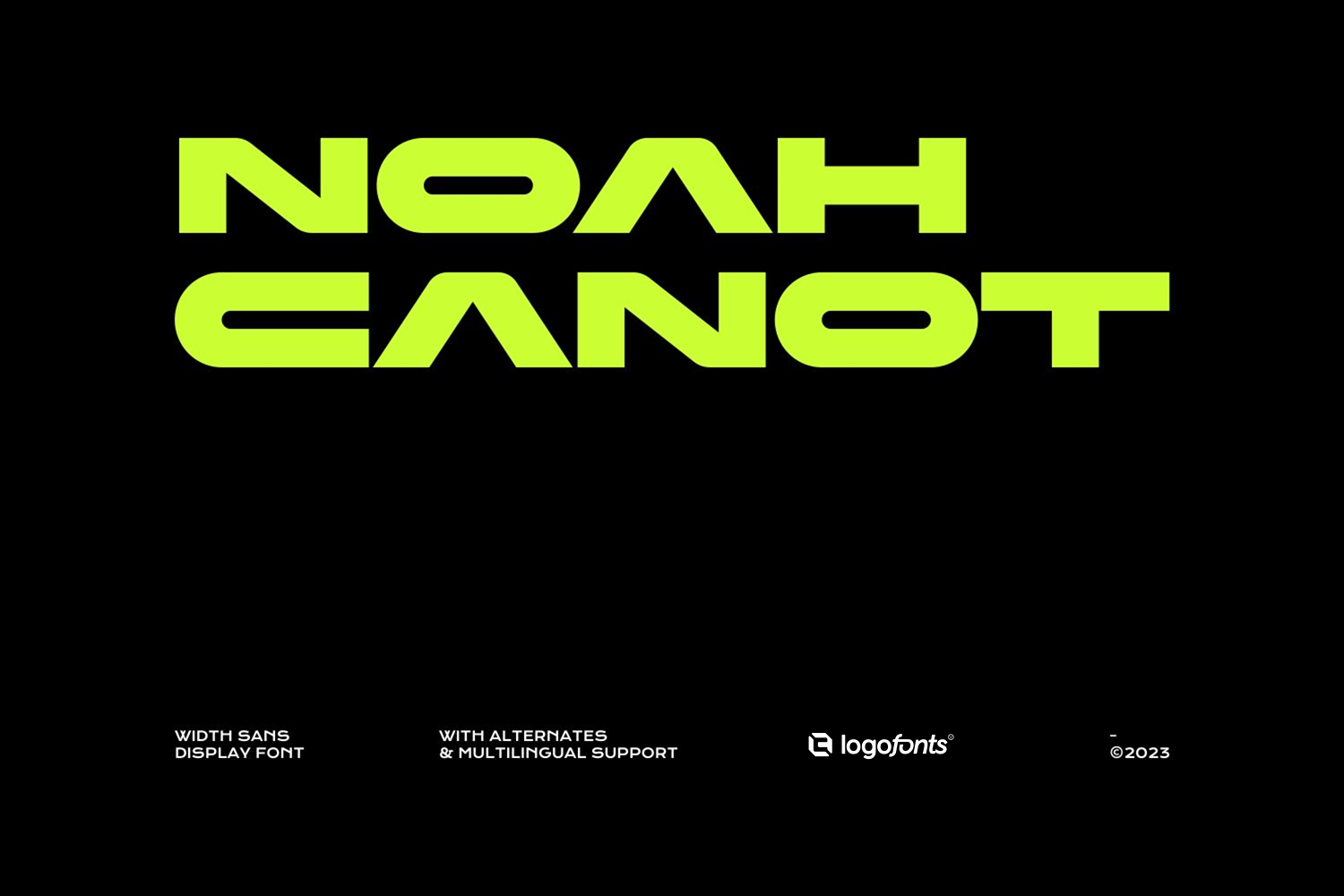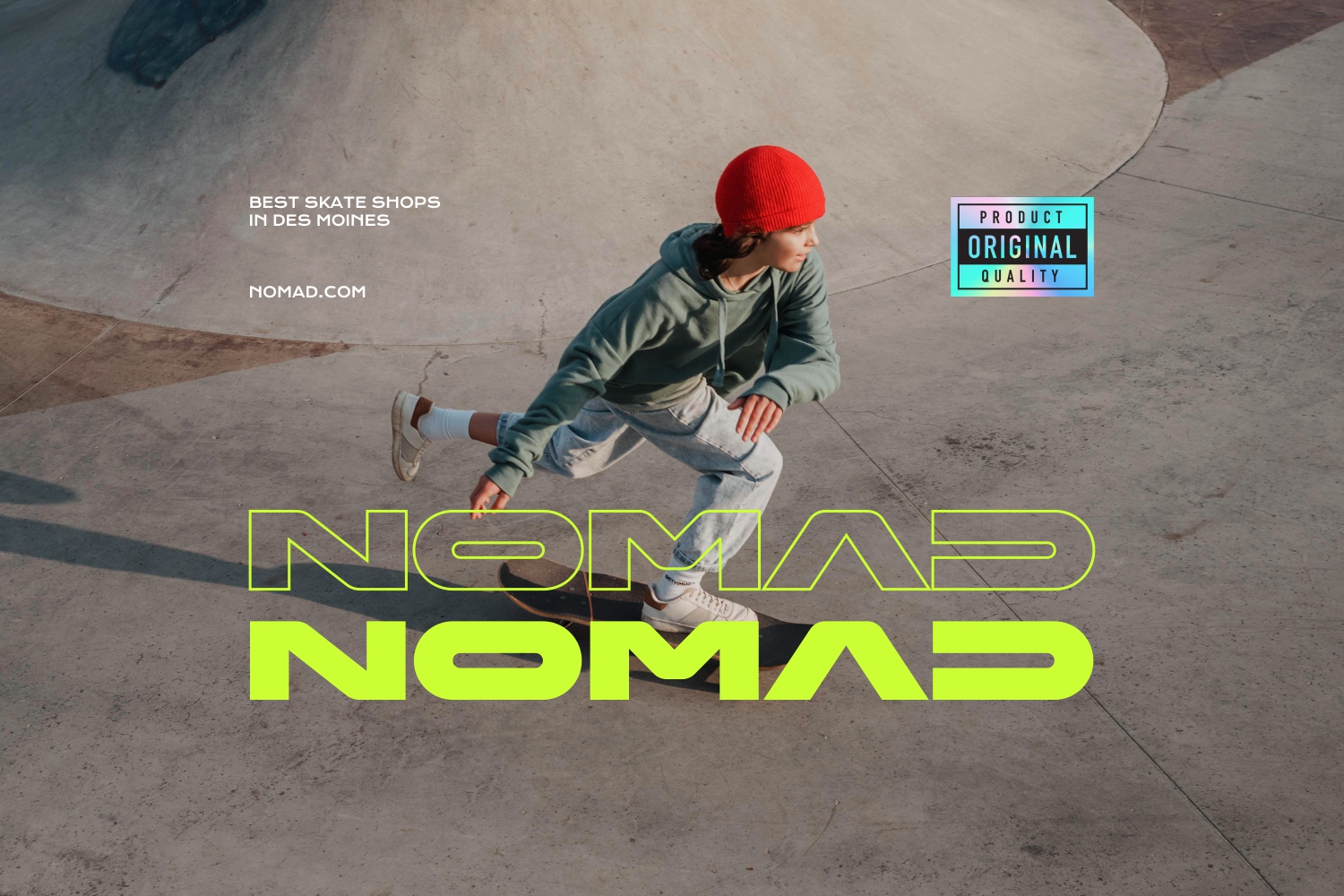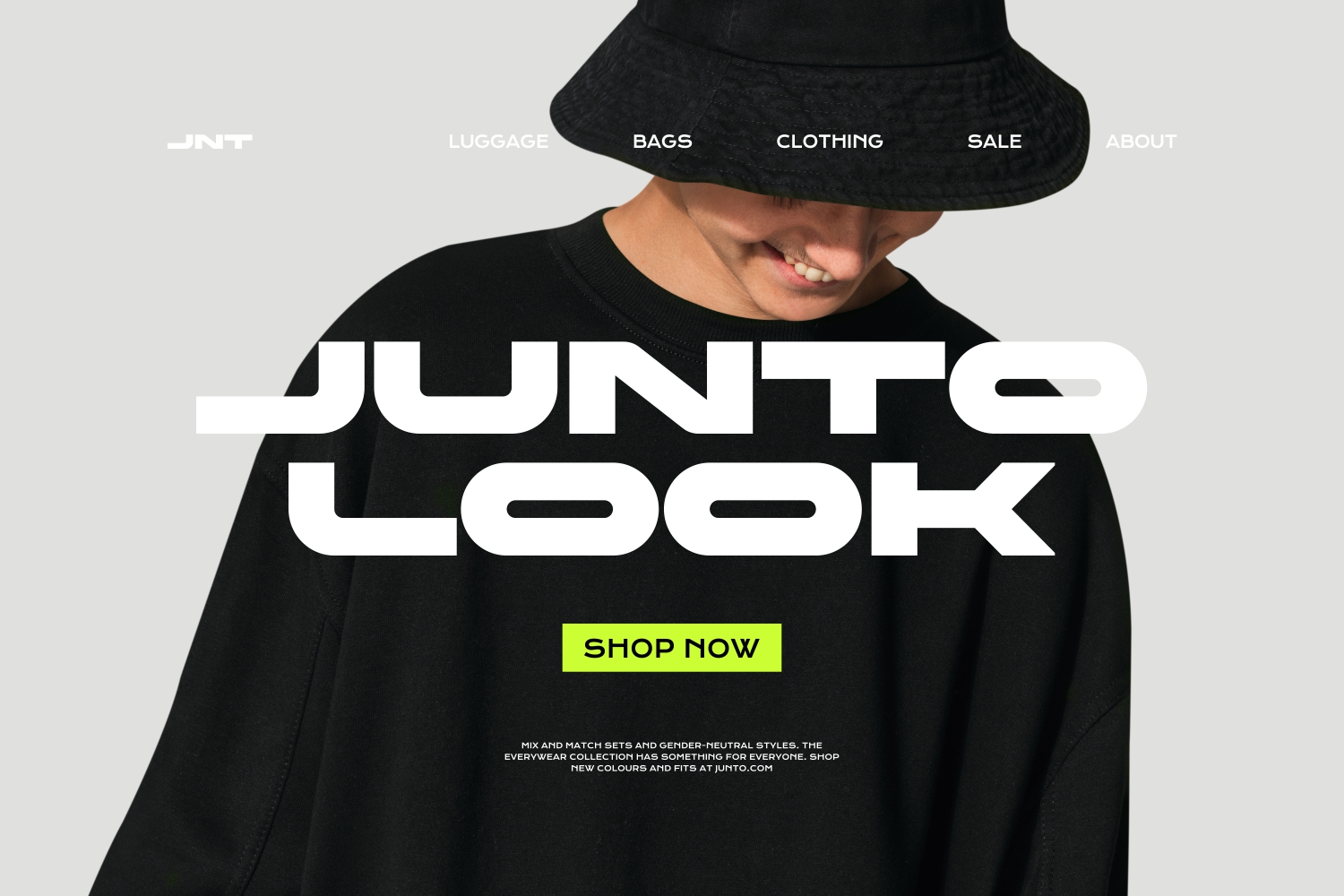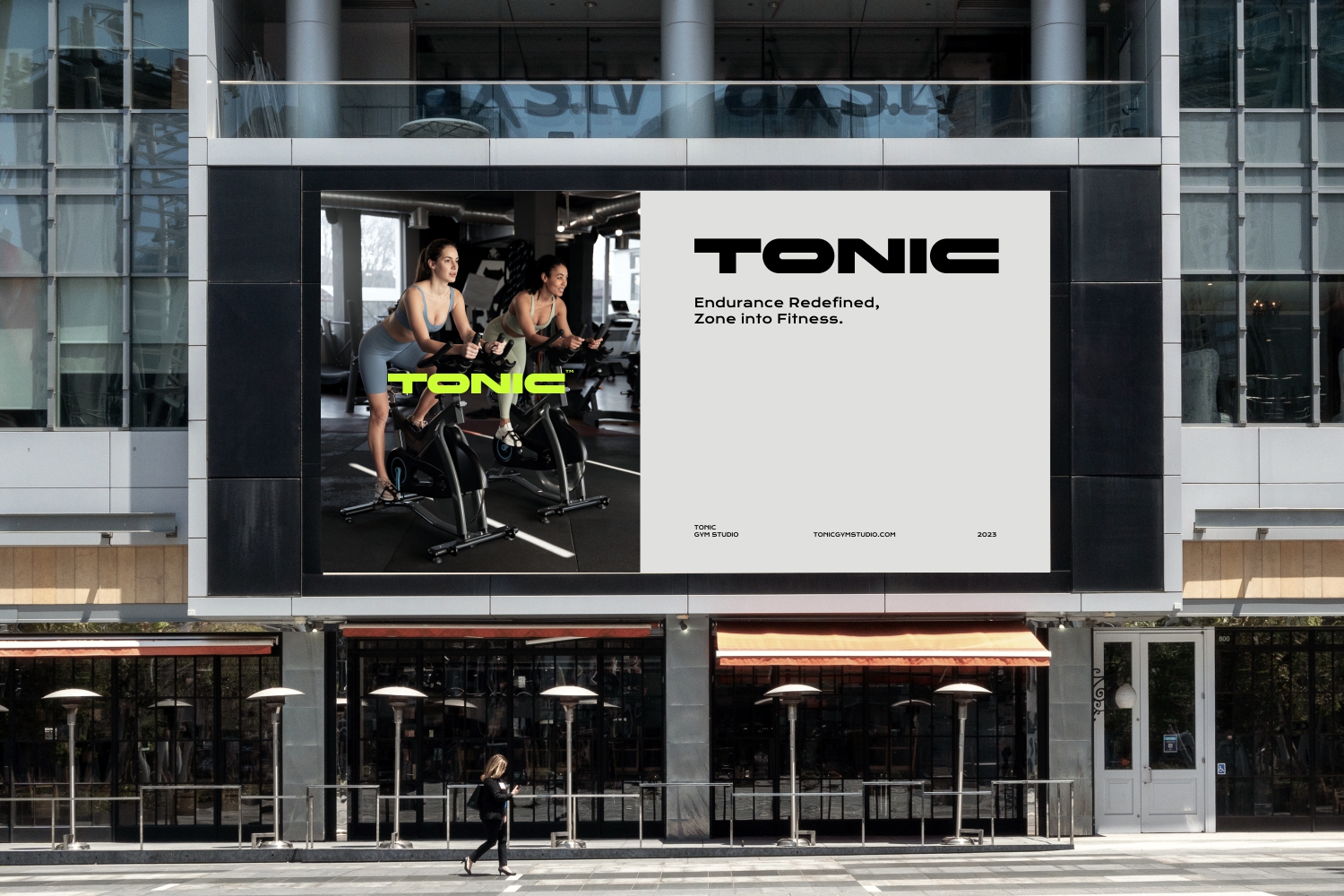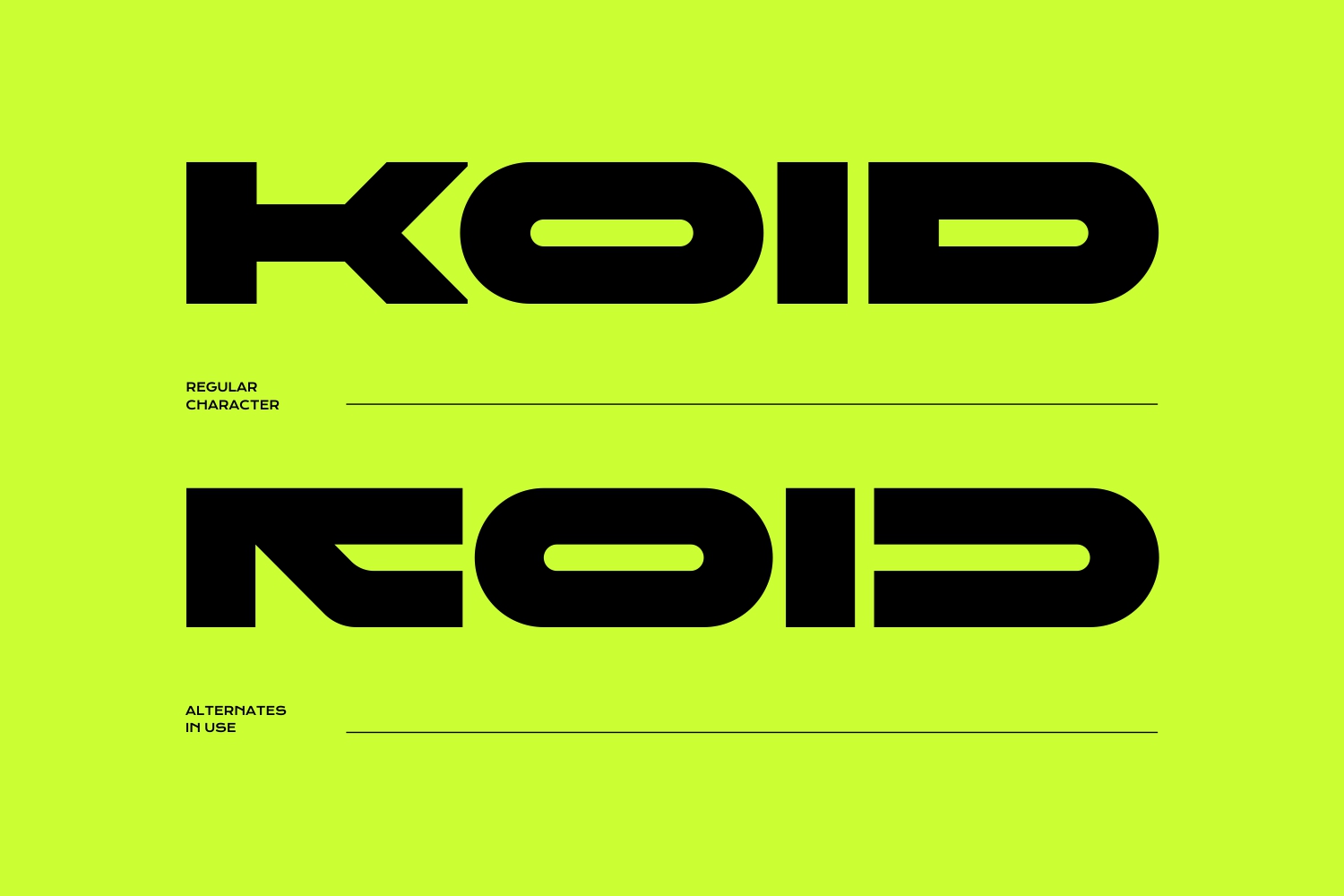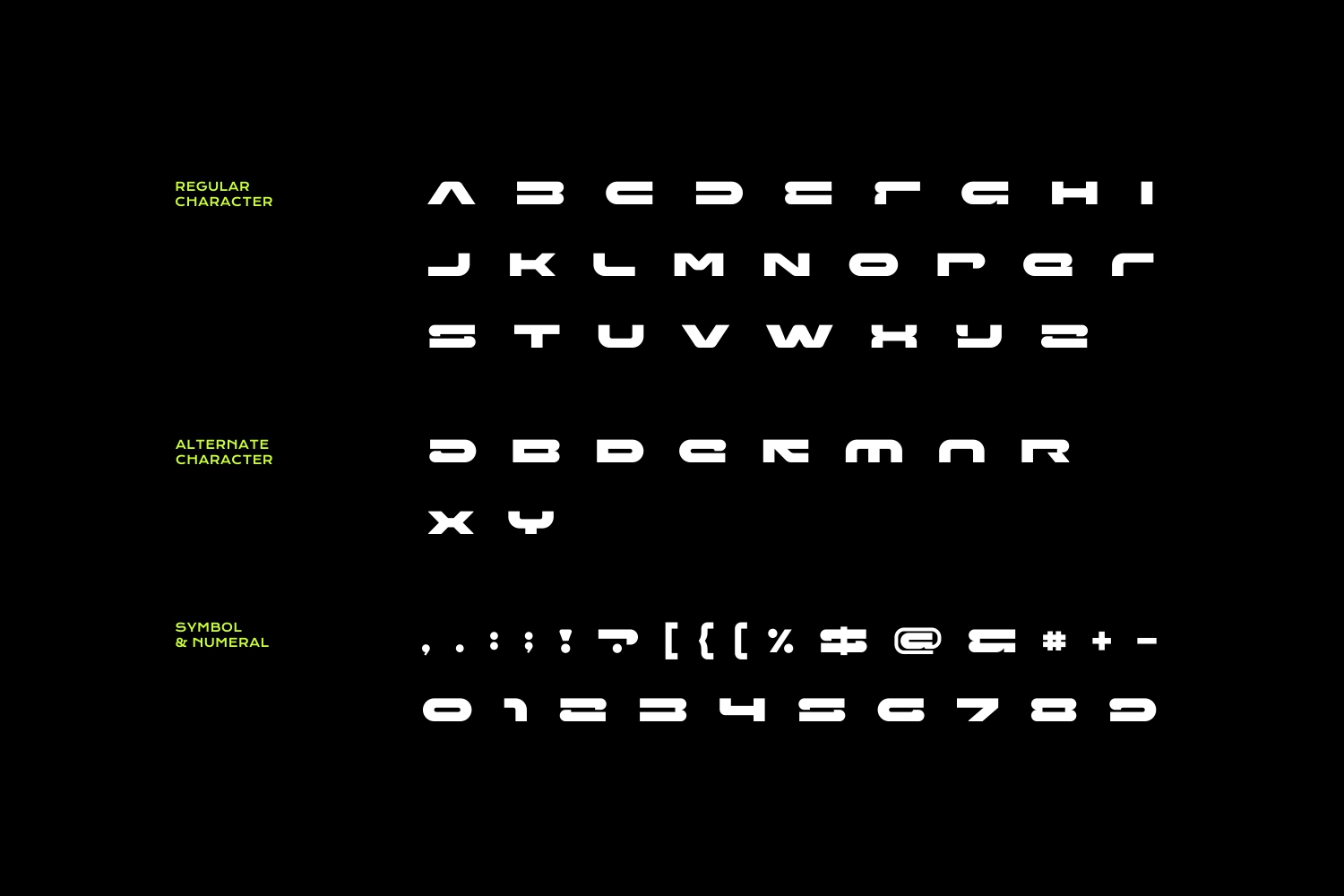
Noah Canot
Noah Canot is a bold and futuristic width sans display font that pushes the boundaries of modern typography. With its wide stance, sharp angles, and modular structure, this typeface is perfect for high-impact visuals—from streetwear branding and sports ads to web banners and album covers. Its clean yet experimental letterforms grab attention instantly, making it ideal for creative projects that require a strong visual voice.
This font includes alternate characters and full multilingual support, allowing for flexible and global usage. Whether used in solid or outlined styles, Noah Canot delivers a tech-inspired aesthetic that feels both dynamic and forward-thinking. It’s a great choice for designers looking to add a modern, edgy, and experimental touch to their visual identity work.